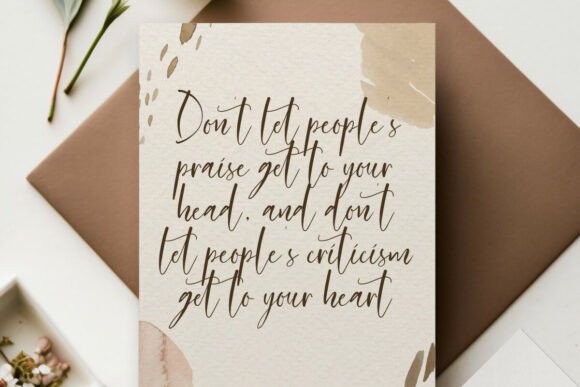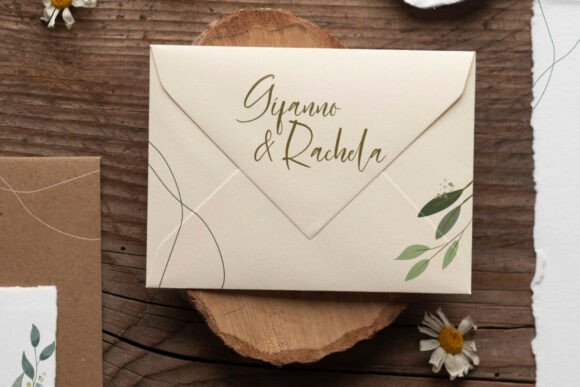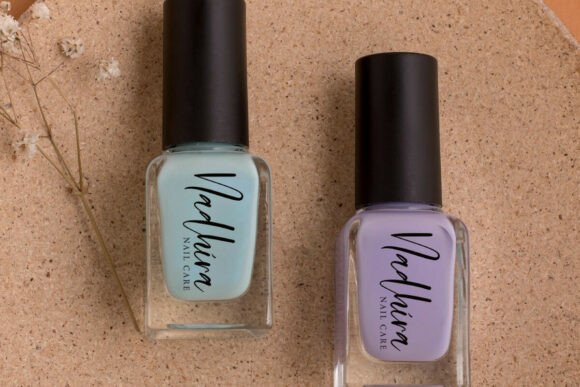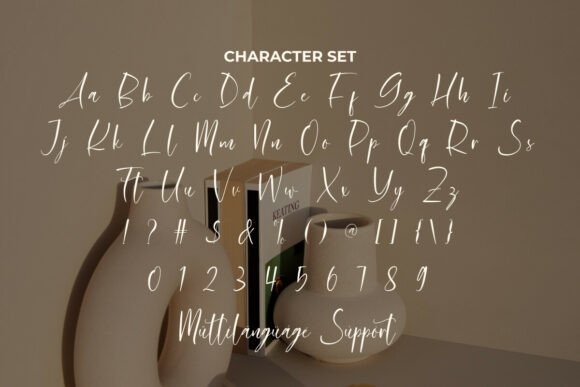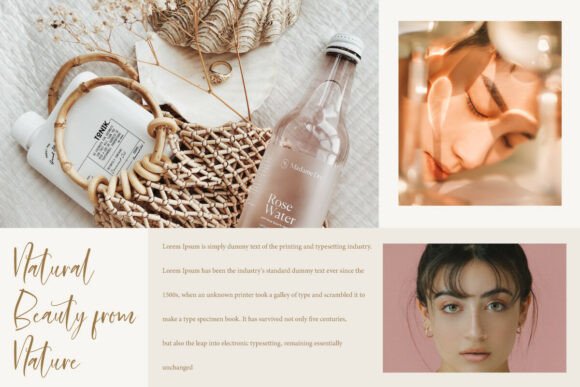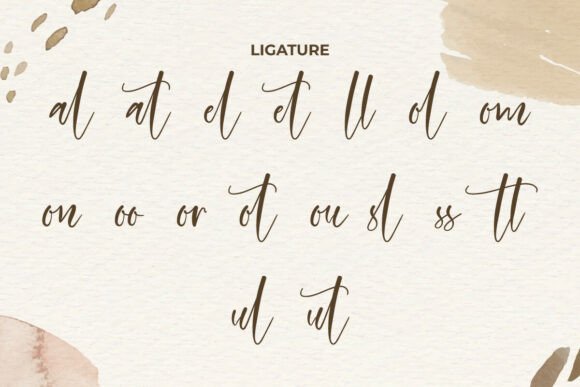
Introduction to Frosting First Font
Frosting First Font is an awesome calligraphic handwriting script font.
It comes with an elegant touch needed for blogs, branding logo, greeting cards, invitations, labels, product packaging, product design, quotes, social media posts, stationery, stickers, title, watermarks, websites, and more The design looks interesting with a natural touch.
Key Features of Frosting First Font
Why Choose Frosting First Font?